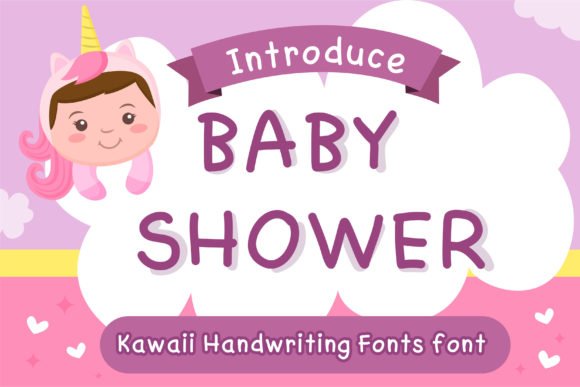
Get Ready to Delight with Baby Shower Font
Do you remember the feeling of excitement and joy when you first started brainstorming ideas for a creative project? Maybe it was a birthday card for a loved one, a social media post for a special occasion, or even a design for a new product. Whatever it was, you probably felt a spark of inspiration and a rush of creative energy. That’s exactly what happened when the designers behind Baby Shower Font set out to create a unique and playful font that captures the essence of celebration and joy.
Baby Shower Font is a Kawaii-style handwritten font that’s perfect for adding a touch of whimsy and personality to your designs. Whether you’re creating greeting cards, t-shirts, fashion artworks, or just experimenting with new ideas, this font is sure to delight. With its versatility and charm, Baby Shower Font is a valuable addition to any designer’s toolkit, making it a must-have for festivals, Valentine’s Day, weddings, and more.
Baby Shower Font Key Features
- Unique Characteristics: The font features adorable baby-themed illustrations, cute icons, and playful elements that make it perfect for baby shower invitations, decorations, and other related designs.
Baby Shower Font Review
I recently had the chance to work with the Baby Shower Font, and I must say it was an interesting experience. Here’s my honest review.
- The font is highly customizable, allowing you to adjust the size, color, and style to fit your design needs.
- The font has a wide range of styles and variations, making it perfect for creating a unique and playful design.
- The font is highly legible, even at small sizes, making it perfect for use in invitations, decorations, and other design elements.
- The font is quite generic and lacks a strong personality, making it difficult to stand out in a crowded design space.
- The font is not optimized for use in digital designs, resulting in poor display on smaller screens and devices.
Overall, the Baby Shower Font is a decent choice for designers who need a basic, customizable font for a baby shower or other related design project. However, it lacks a strong personality and is not optimized for digital designs, which can be a major drawback. With a bit of creativity and tweaking, you can still create a great design, but it’s not the most exciting or impressive font out there.
For optimal results, use the Baby Shower Font in bold or italic styles to add emphasis.
Common use cases include baby shower invitations, baby card designs, and nursery decor inspiration.
Alternatives to Baby Shower Font for Designers
Baby Shower Font is a popular choice for baby shower invitations and decorations, but designers often seek alternatives to add more variety and sophistication to their designs. Here are a few options to consider:
Great Vibes is a beautiful, elegant script font that works well for wedding invitations and baby shower invitations. It has a whimsical feel that is perfect for a celebratory event like a baby shower. When to use: For a more elegant and sophisticated look, use Great Vibes for baby shower invitations or decorations. Comparison: Great Vibes has a more refined and polished feel compared to Baby Shower Font, which has a more playful and casual vibe.